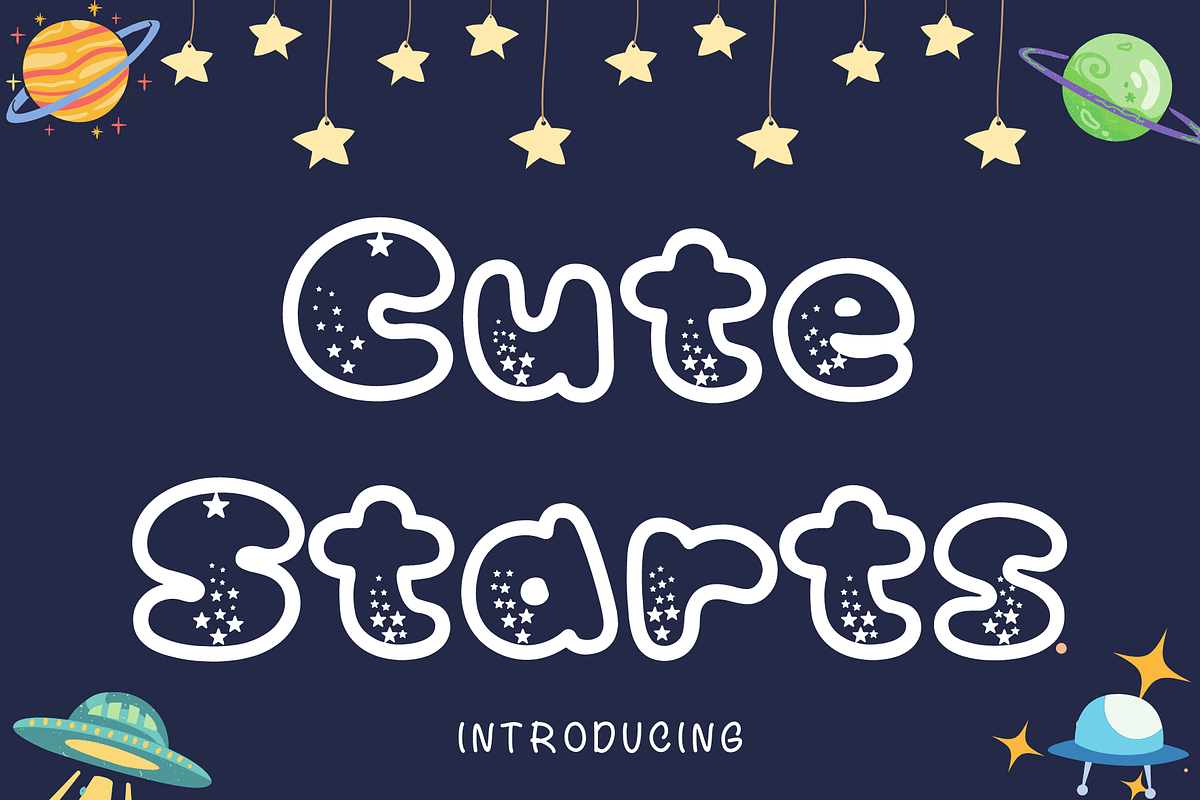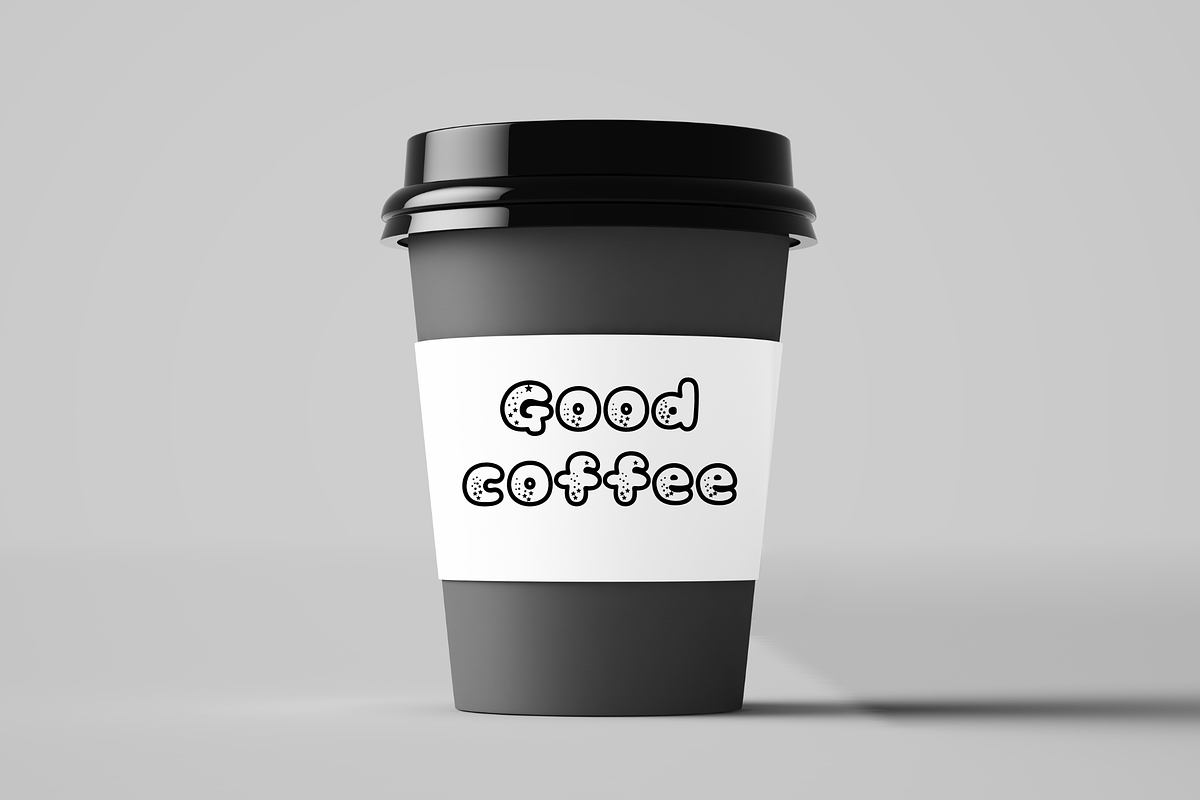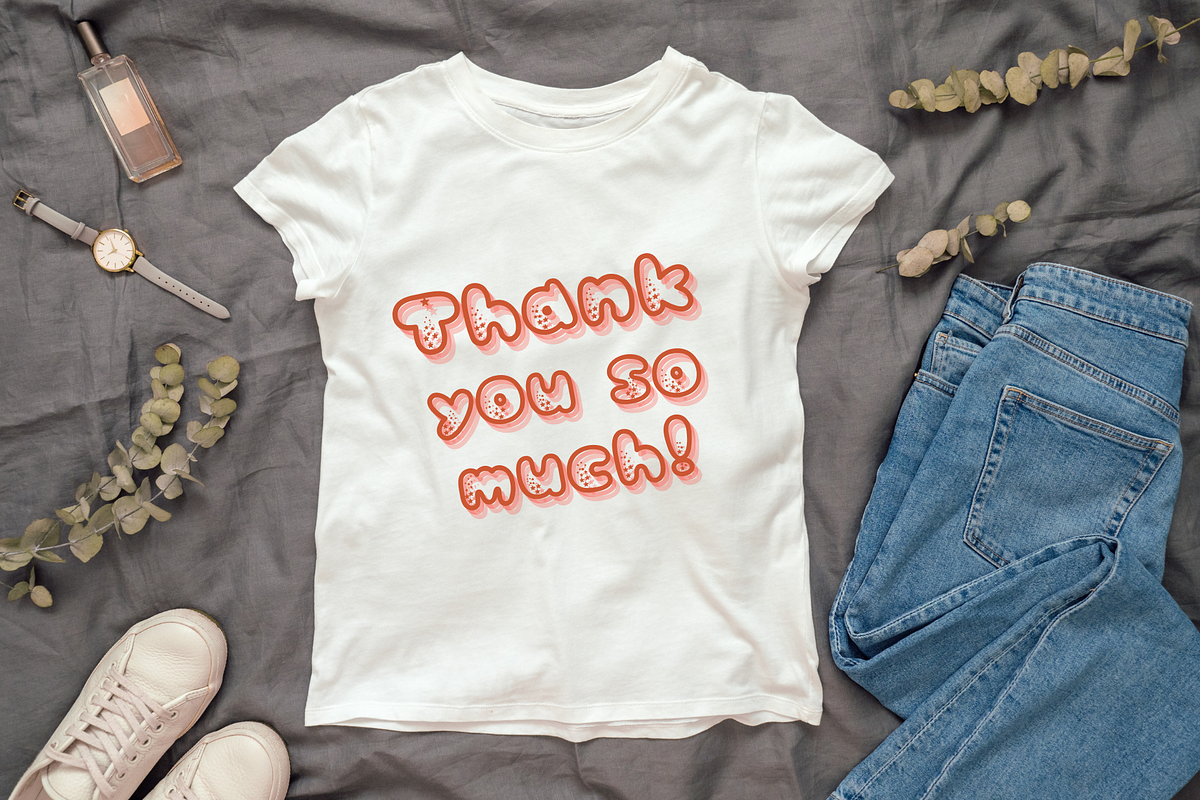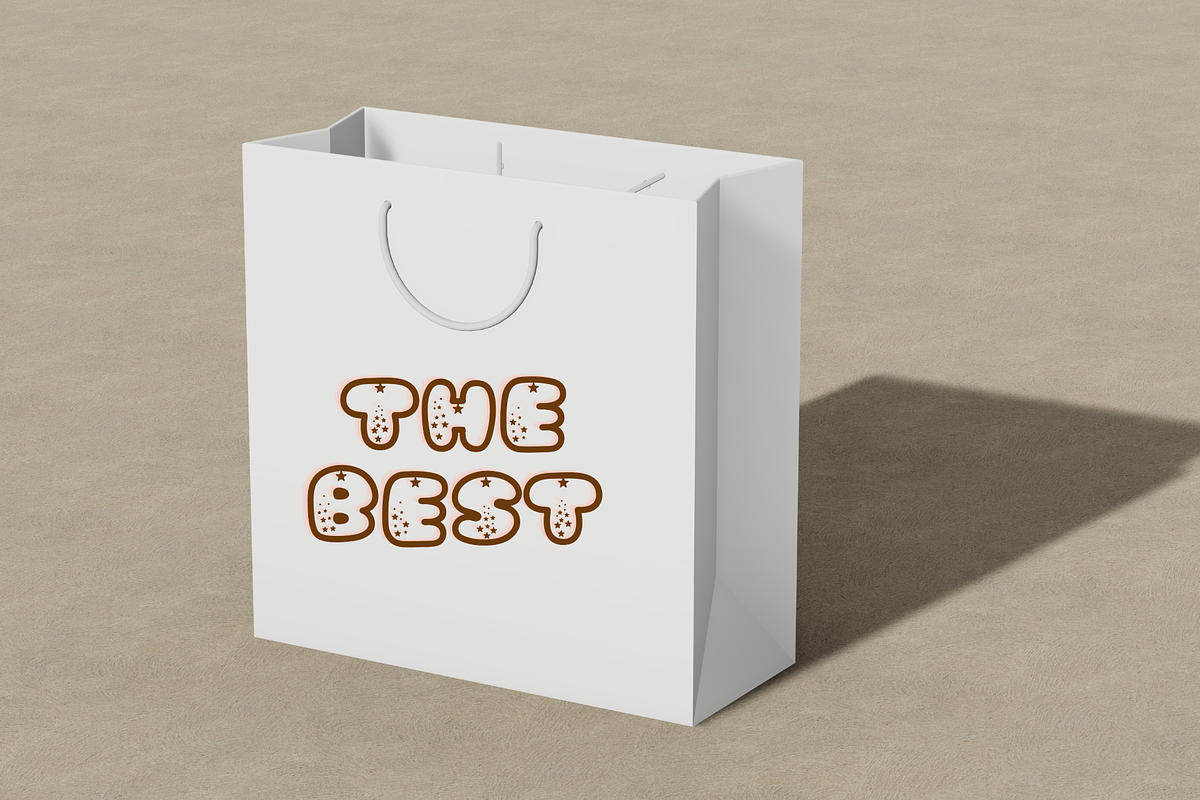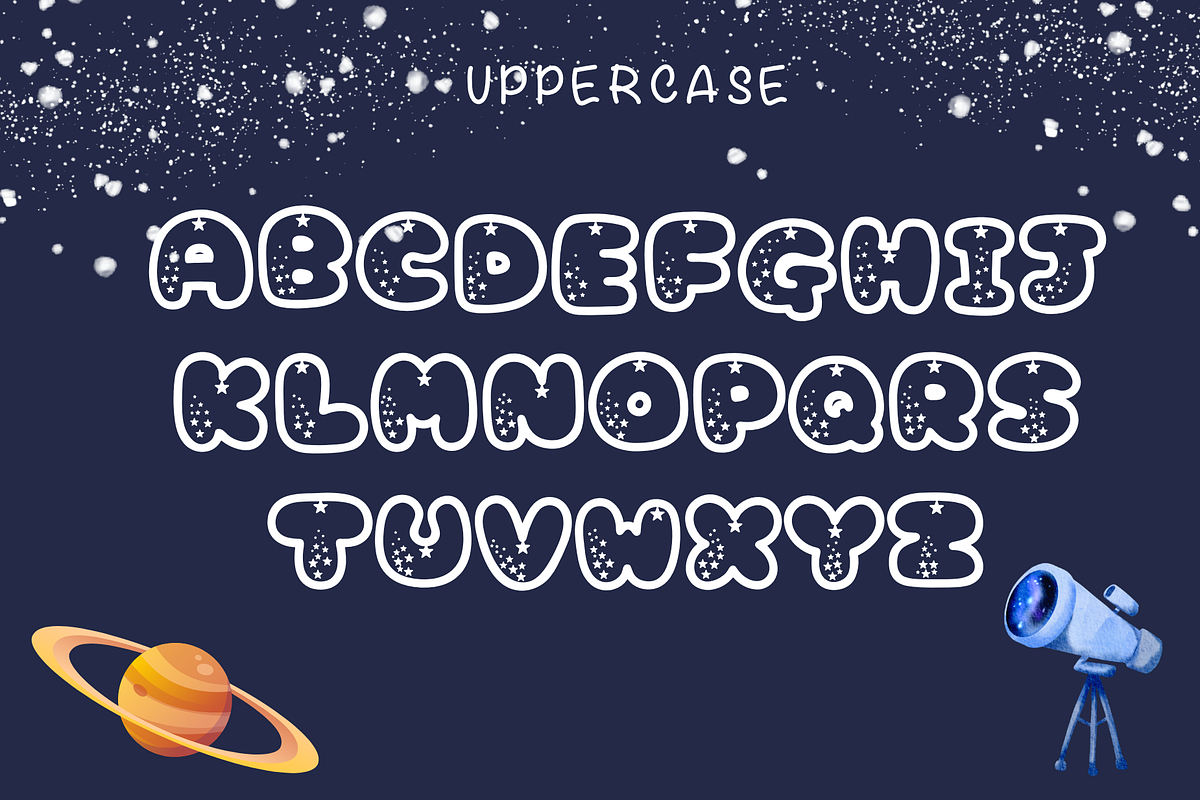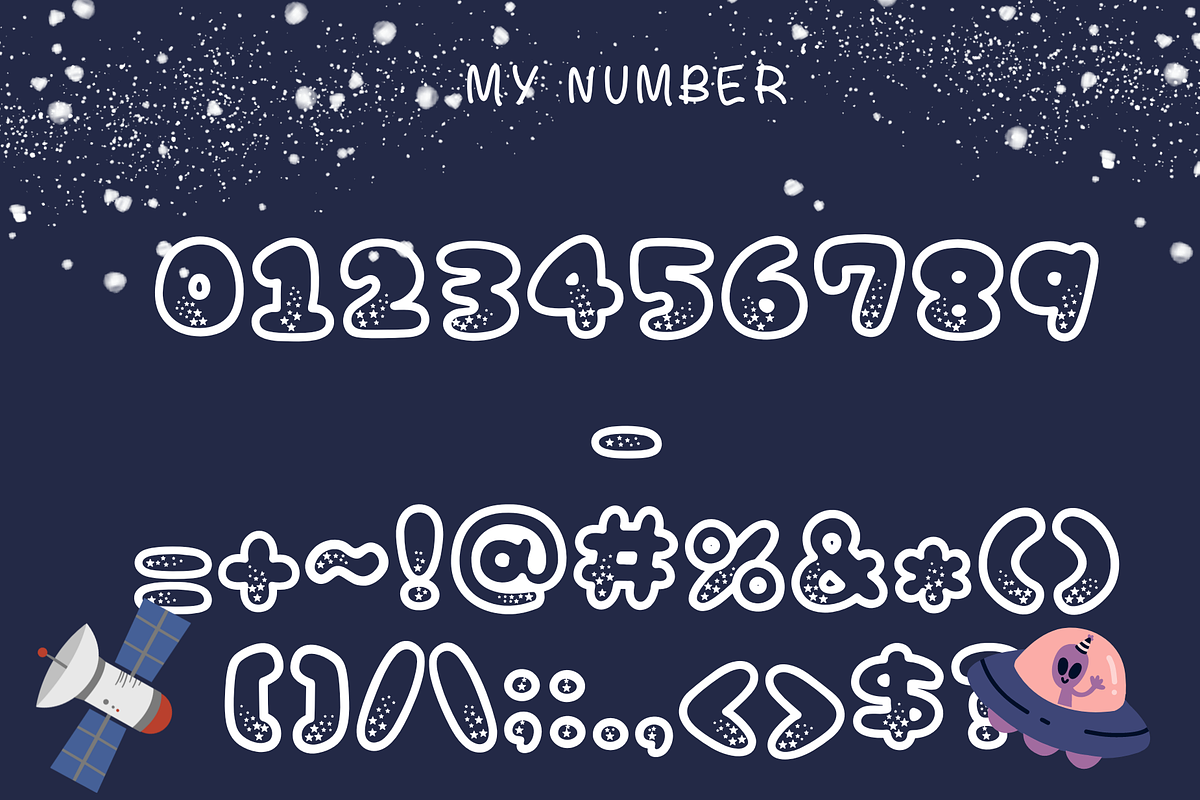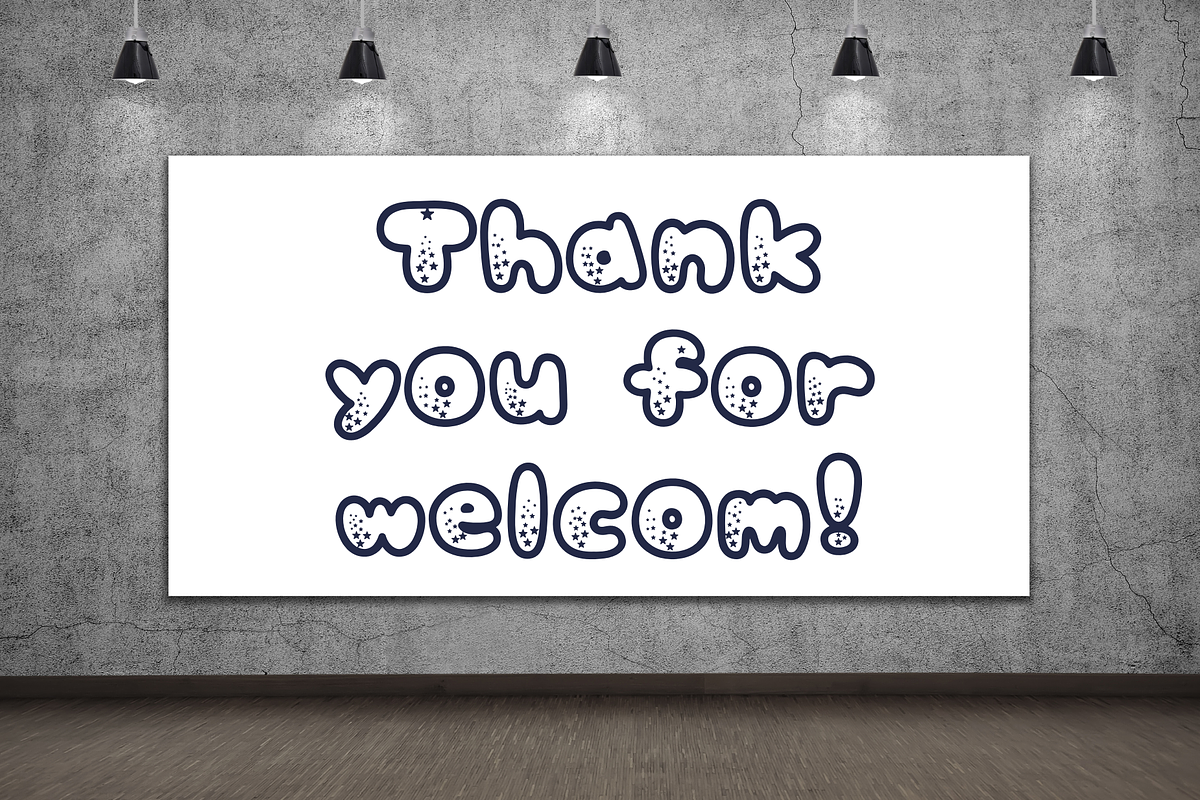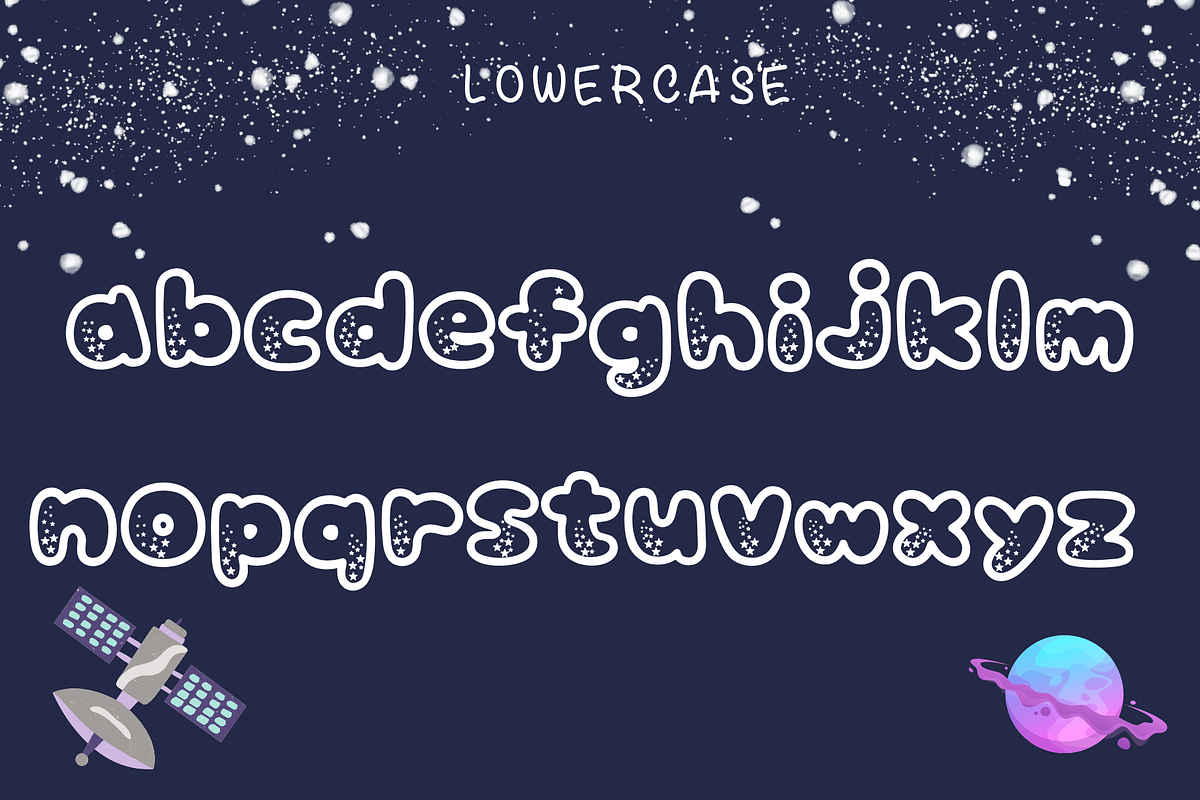
Cute Starts
Cute Starts Font
Super cute handwriting font, simple style, suitable for teaching. decorate the presentation Use for education, advertising, illustration, multi-purpose use. welcome everyone thanks.